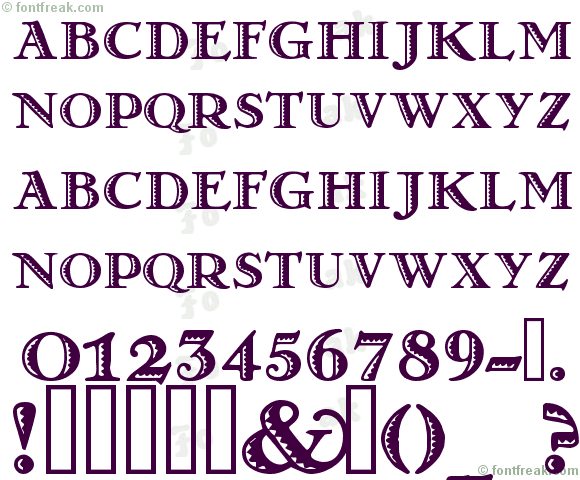
Matador
About Matador
The Matador font, created by B. Haber in 1994, is a distinctive display typeface that beautifully blends decorative elements with a bold, eye-catching aesthetic. This shareware font features a unique serif style characterized by pronounced stroke weights and high contrast, which gives it a strong presence on any medium. The spacing is thoughtfully designed to ensure legibility while maintaining a playful, artistic flair, enhanced by the decorative elements that set it apart from more conventional typefaces.
Matador is an excellent choice for various creative applications. Its striking appearance makes it ideal for wedding invitations, where it can add a touch of elegance and personality. Movie posters benefit from its boldness, drawing viewers' attention and conveying a sense of drama. Restaurant menus can utilize Matador to create a welcoming atmosphere, inviting diners to indulge in their dining experience. Additionally, this font works well for branding materials, enabling small business owners to establish a memorable identity that resonates with their target audience.
Targeted primarily at graphic designers, content creators, and small business owners, Matador provides a unique option for those looking to elevate their visual communication. The font's decorative qualities make it versatile for various creative projects, ensuring that it captures attention and leaves a lasting impression.